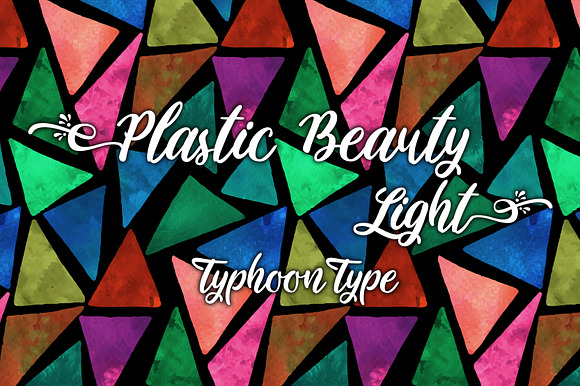
Plastic Beauty Light font
Plastic Beauty Light This font perfect for logos, name tag, advertising, product packaging, clothing, social media & greeting cards.
Type ( before word to get beginning swash and Type ) after word to get the ending swash. Example : (Plastic Beauty)
Why Plastic Beauty Light font is worth a look
Plastic Beauty Light font by TyphoonStudio fits naturally into Branding, posters, packaging, typography.